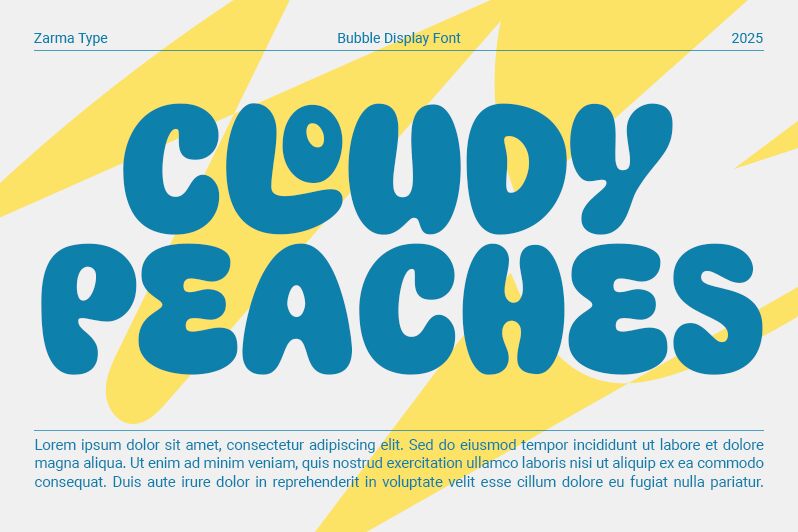
Cloudy Peaches font by Zarma Type Foundry is a free cartoon font that embodies a fun and friendly aesthetic. Infusing modern appeal with a youthful vibe, this typeface carries an approachable aesthetic that feels informal yet incredibly engaging. Each letter has a rounded, bubbly design, contributing to its bold presence in any project.
The handwritten style of this font is ideal for storybooks and comics or adding spark to children’s toys and packaging. Make use of it for headline designs, posters, as well as logos, branding, and packaging. It will come in handy for content related to kids such as games and sports.